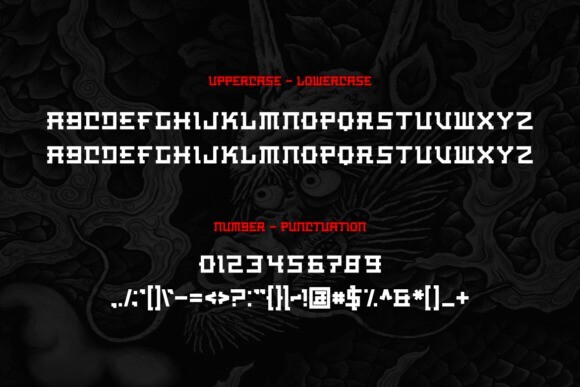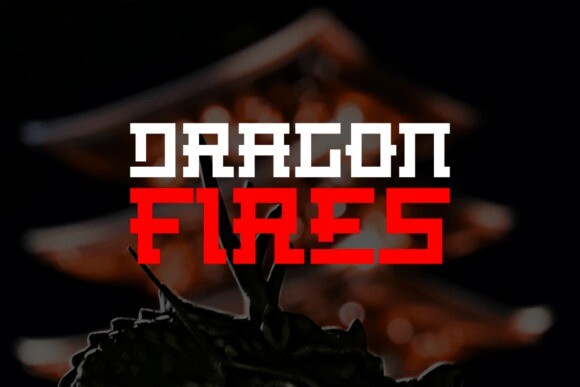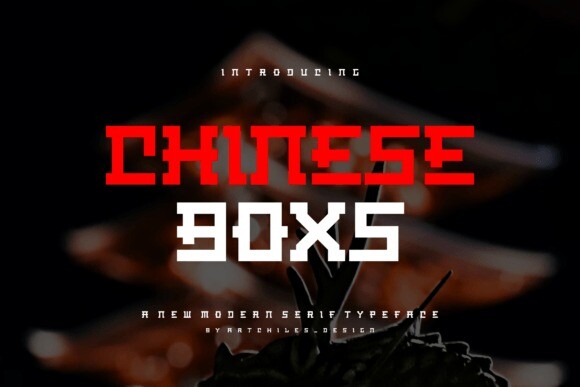
Chinese Boxs Font
Designer: artchiles design
Chinese Boxs Font is a stylish serif display font with elegant curves and sharp edges. It’s perfect for making headlines or titles stand out. The design combines modern flair with a classic look, making it ideal for posters, invitations, and branding. With its unique character, Chinese Boxs adds a touch of sophistication to any project.